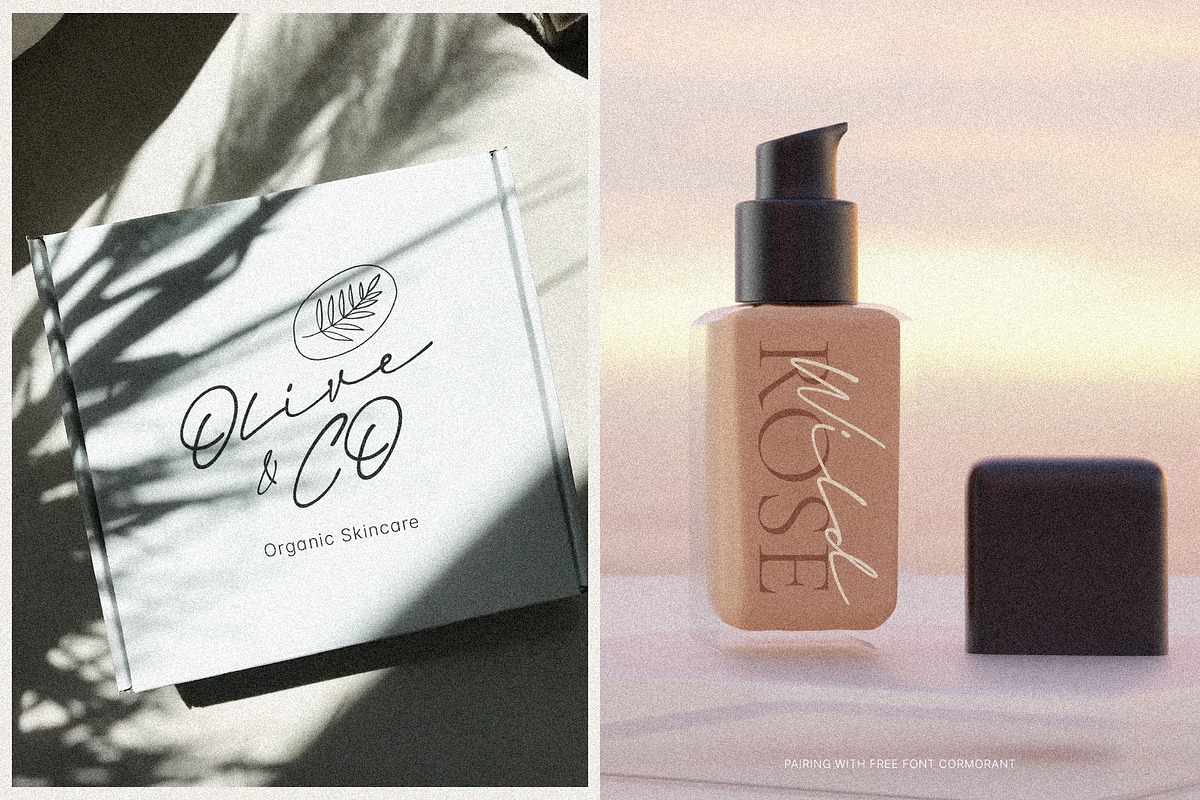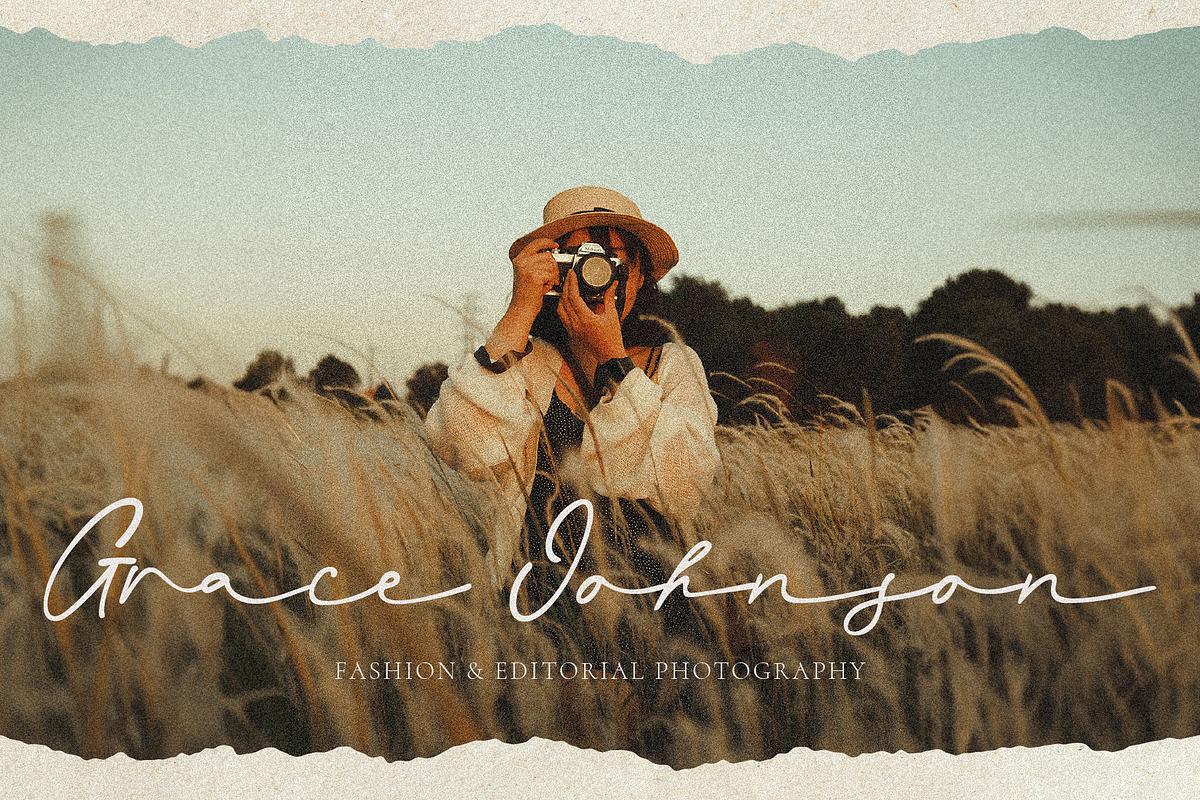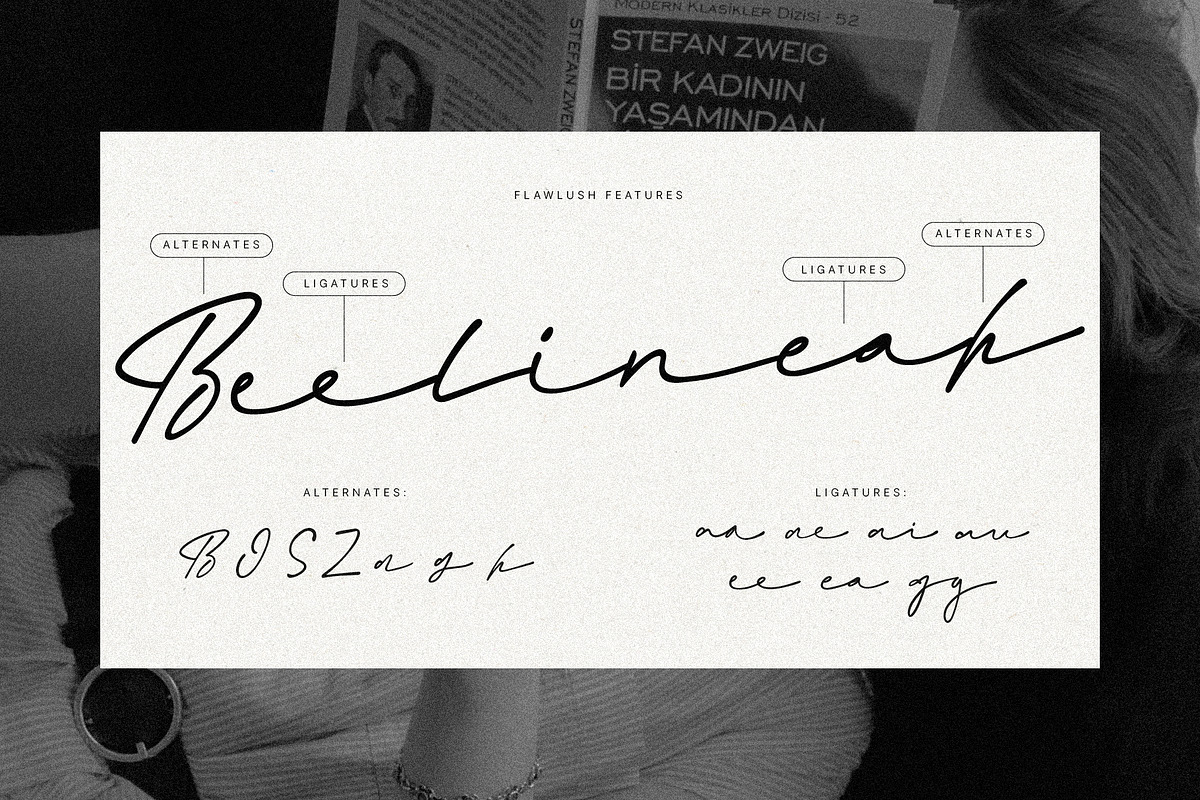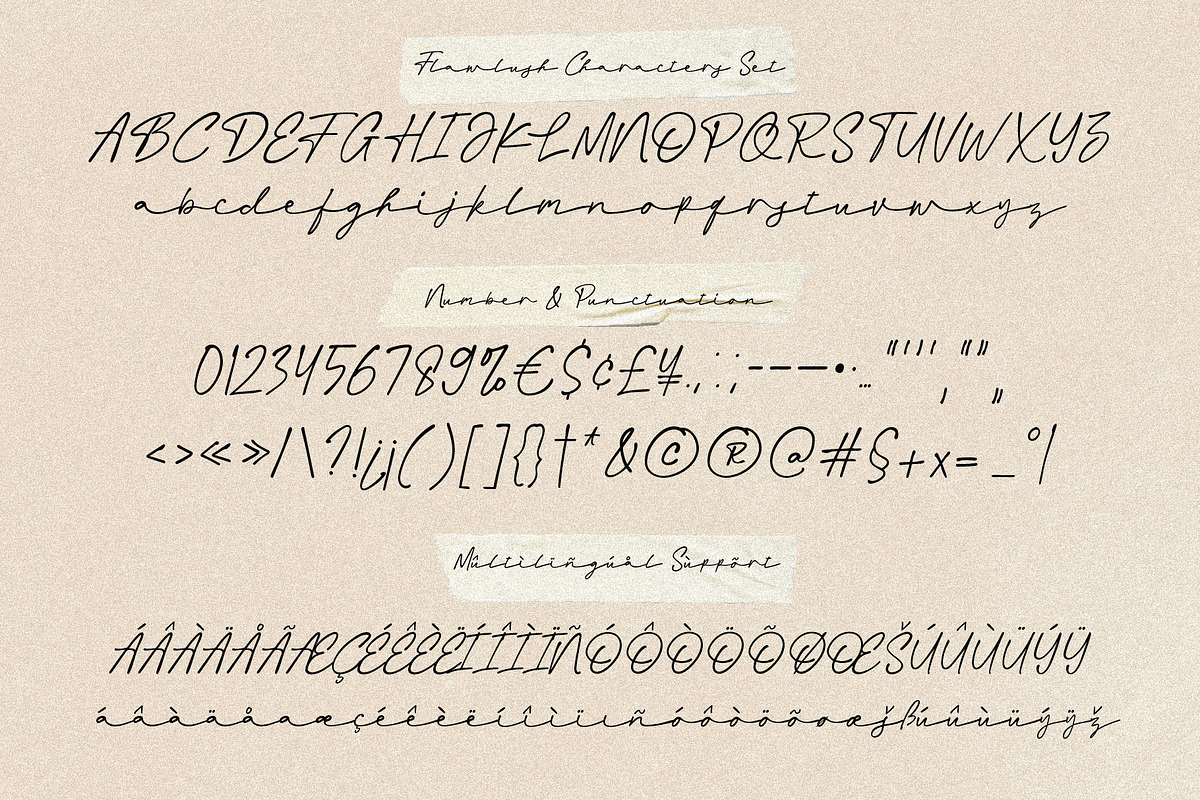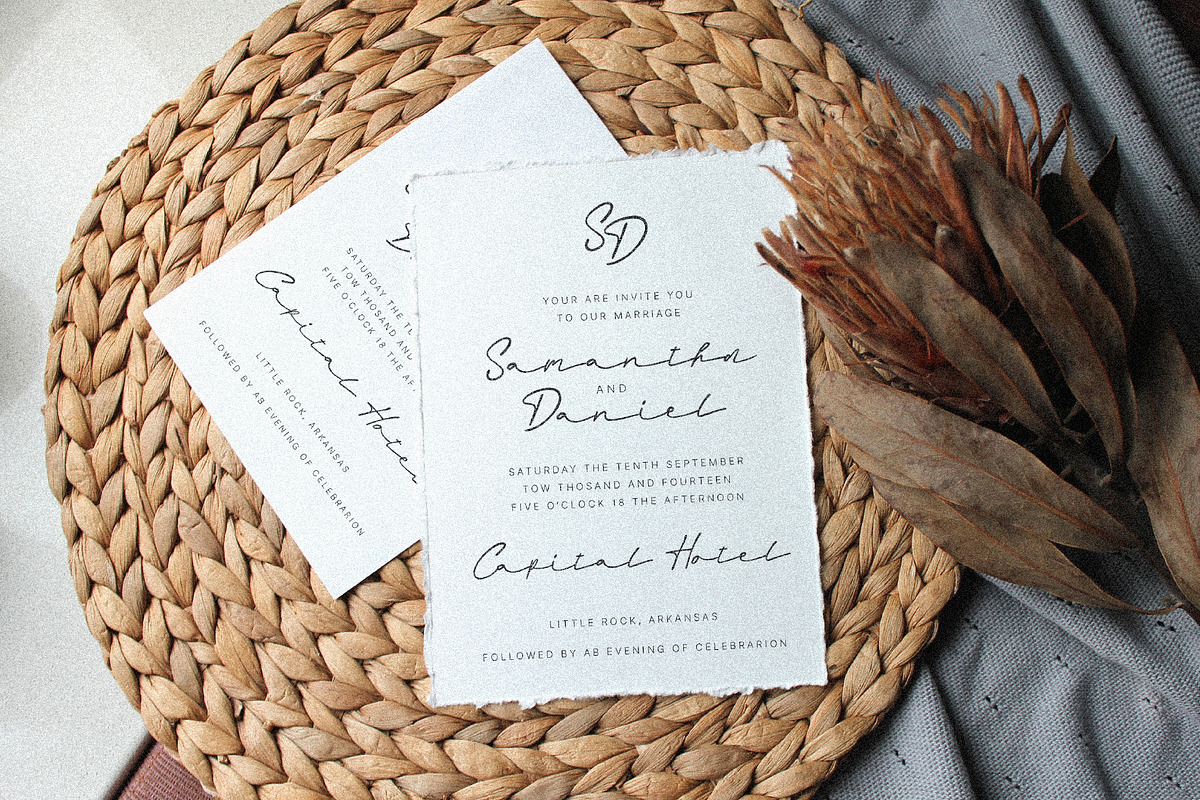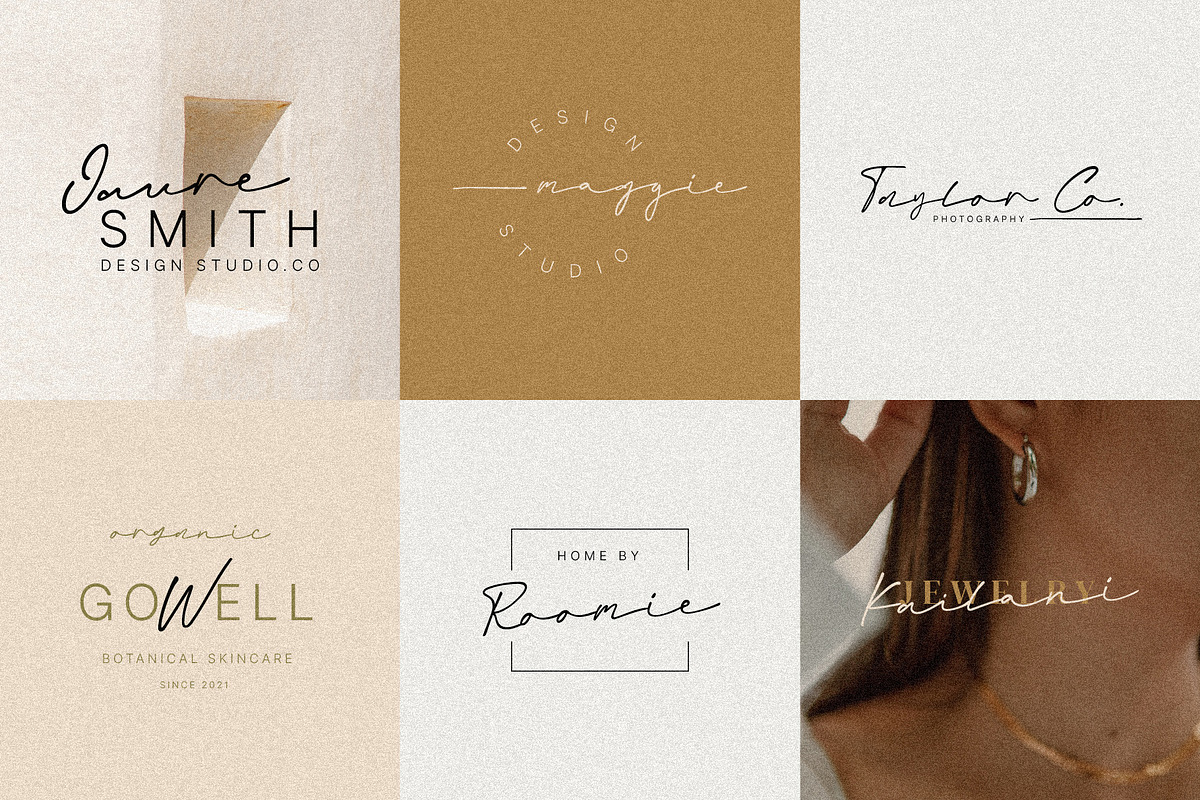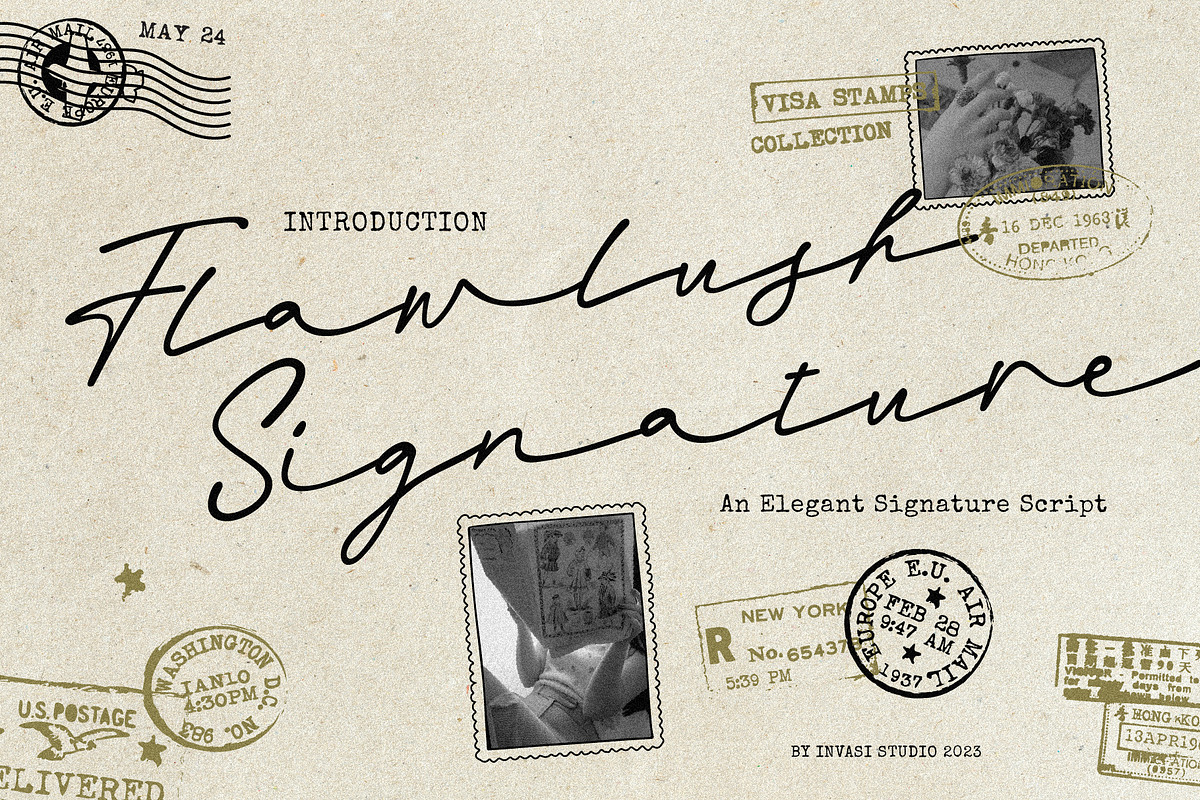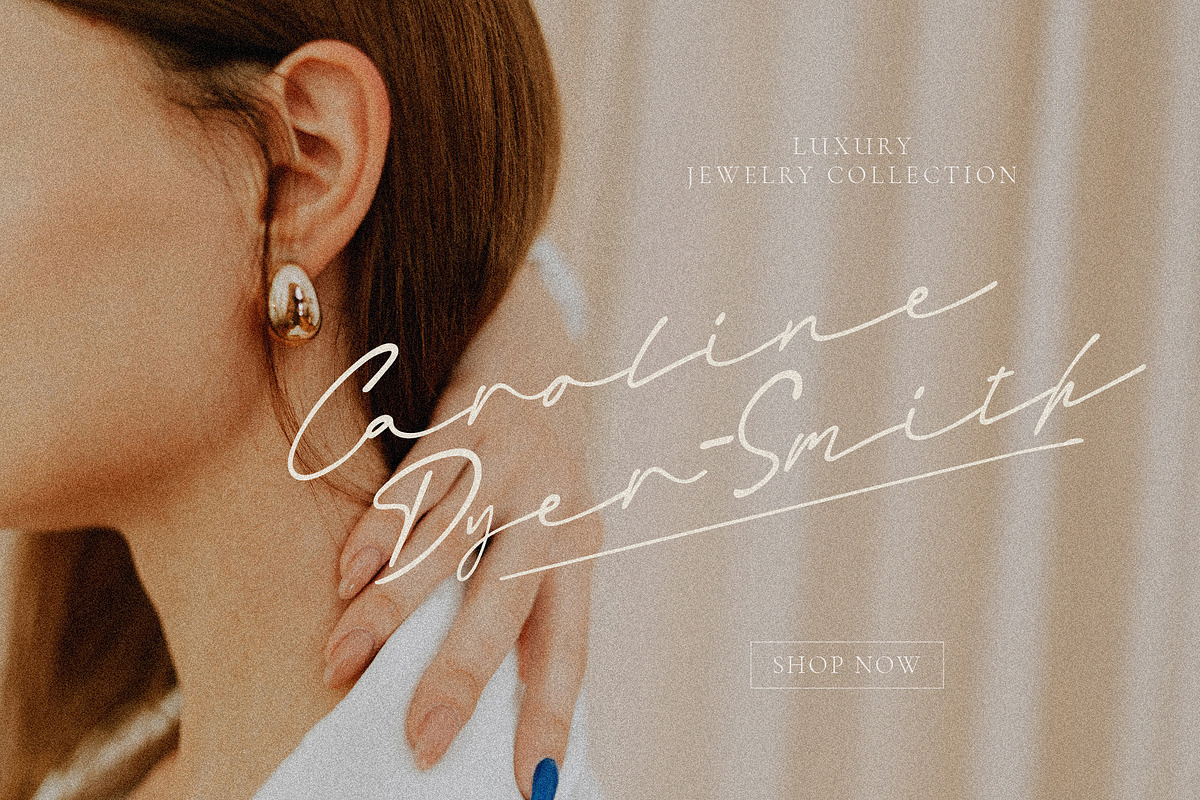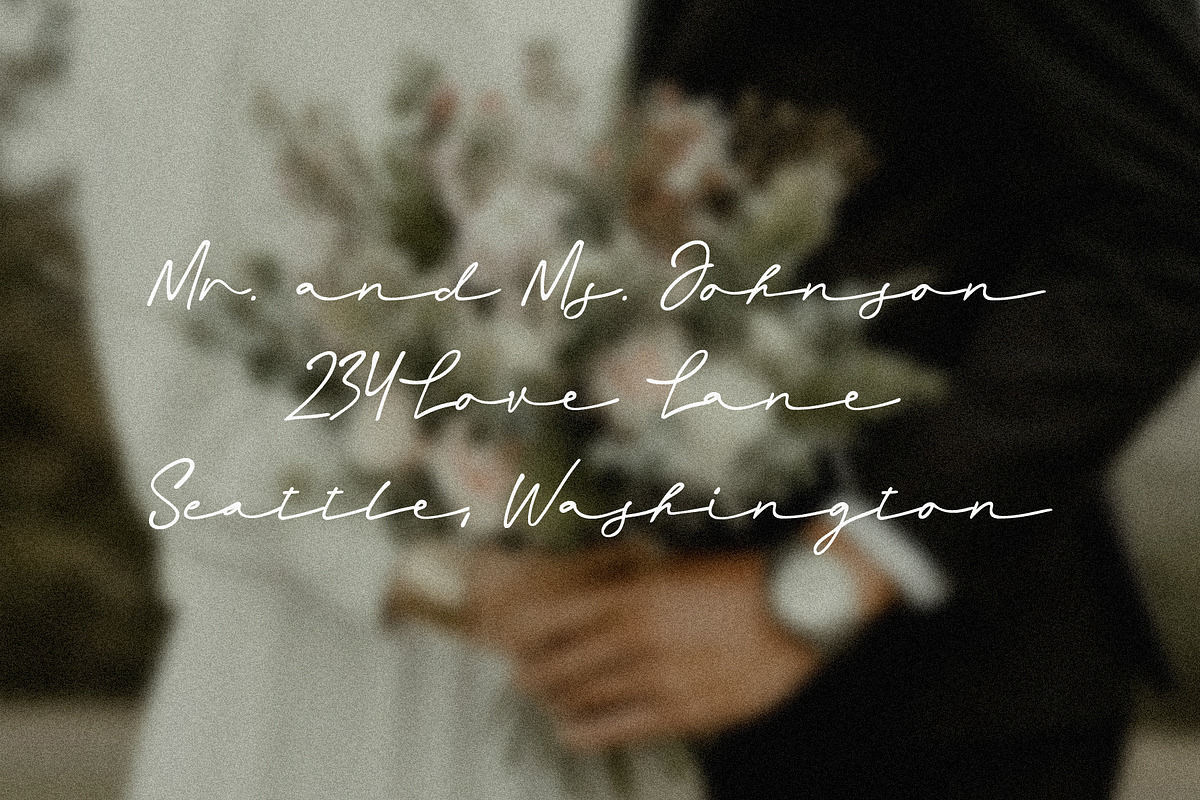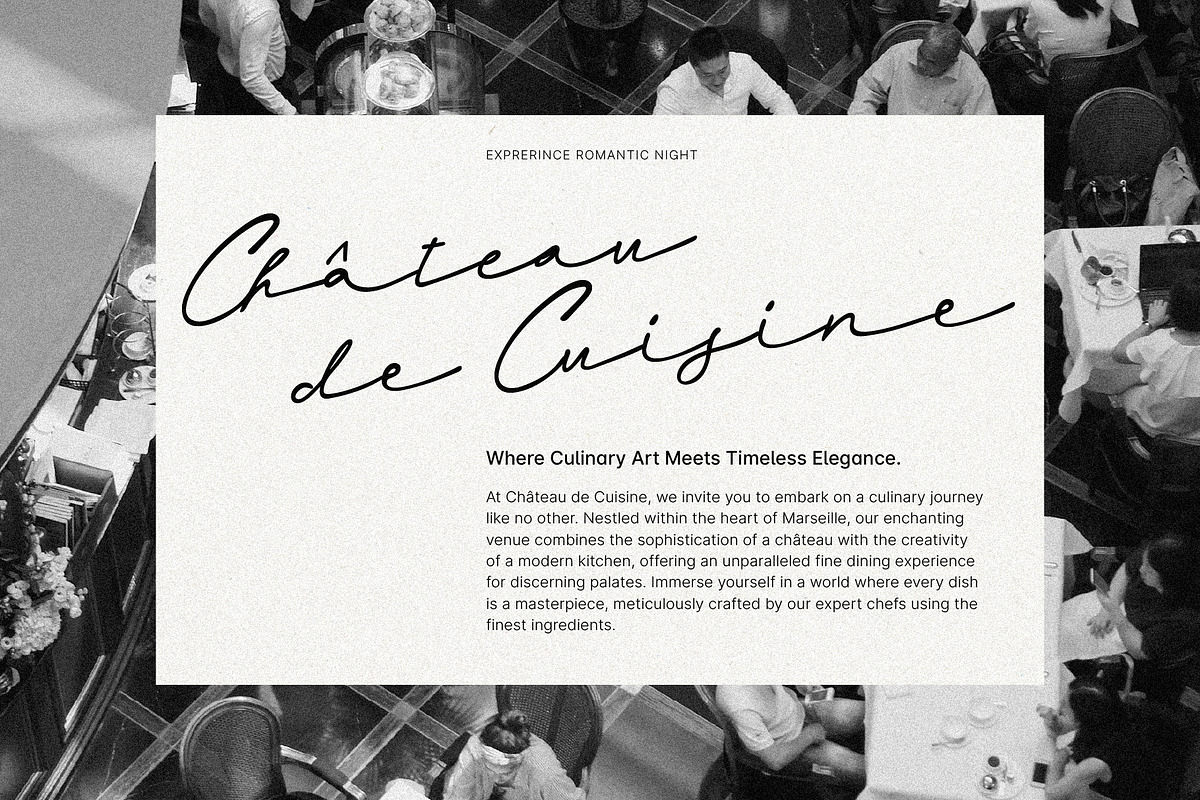
Flawlush - Elegant Script
Discover the charm of Flawless Elegant Tail Script, a handwritten font that beautifully mimics the flow and grace of natural handwriting. This font's elegant strokes are infused with an authentic, romantic feel, making it an ideal choice for projects that require a touch of love and elegance. Whether you're designing wedding invitations, working on romantic themes, crafting branding materials, or any elegant design, Flawless Elegant Tail Script brings a personal and intimate touch.
Equipped with a full set of uppercase and lowercase letters, numerals, punctuation, and multilingual symbols, this font is not only beautiful but also versatile. To enhance your creative freedom, it includes an array of alternates and ligatures, allowing for a truly customized and unique experience in your designs.
- Multilanguage Supports 60+ Latin-based languages